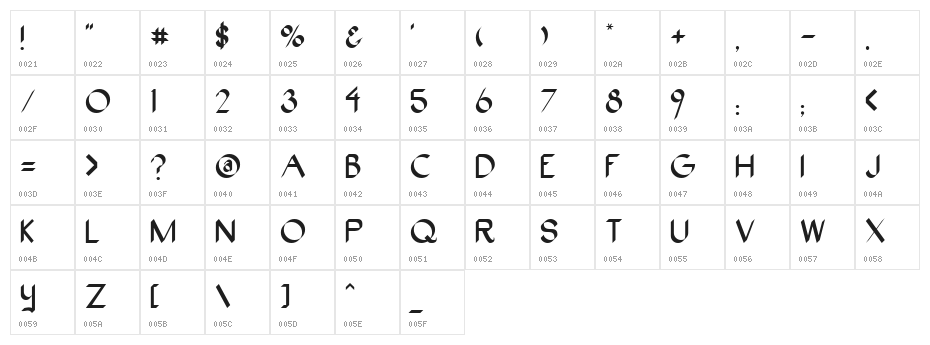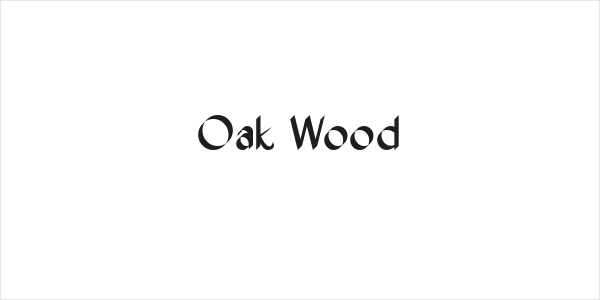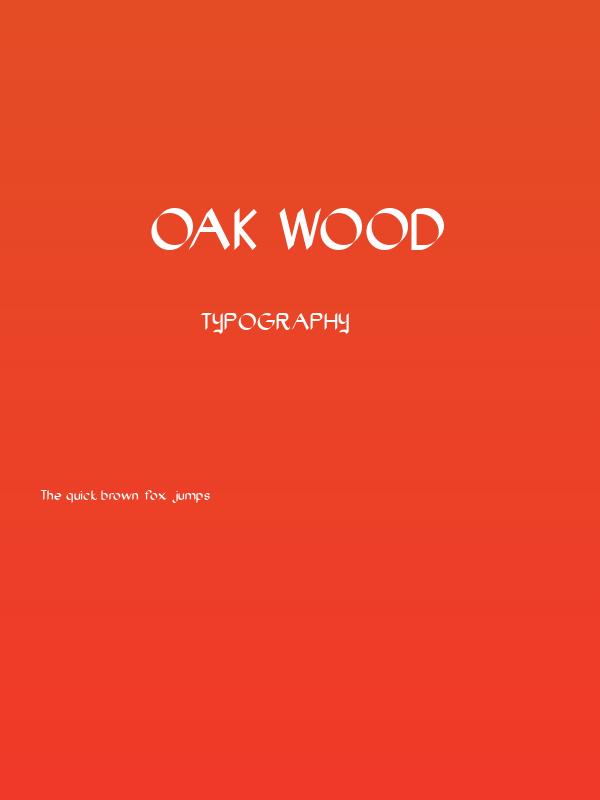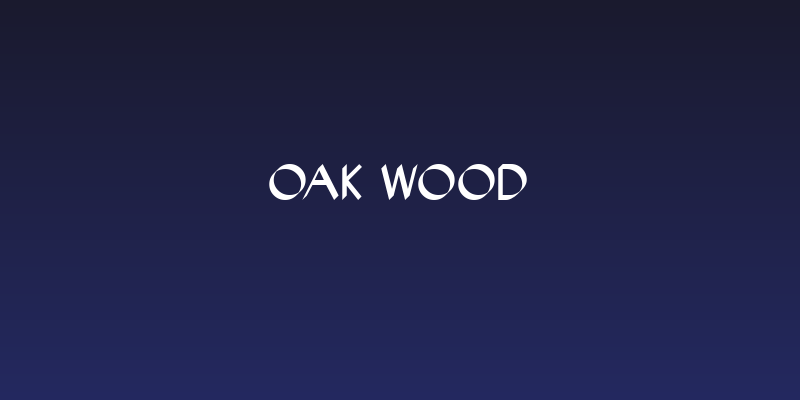
Oak Wood Font
Oak Wood Description
This font features a bold and striking design with sharp, angular edges and a geometric influence. The uppercase letters exhibit a strong presence with their wide stance and pointed terminals, creating a sense of modernity and sophistication. The lowercase letters maintain a consistent style, with smooth curves that contrast the sharpness of the uppercase. Numbers are designed with a similar aesthetic, ensuring uniformity across all characters. The special characters are crafted with attention to detail, complementing the overall style. This font's unique design makes it ideal for projects that require a contemporary and bold statement.